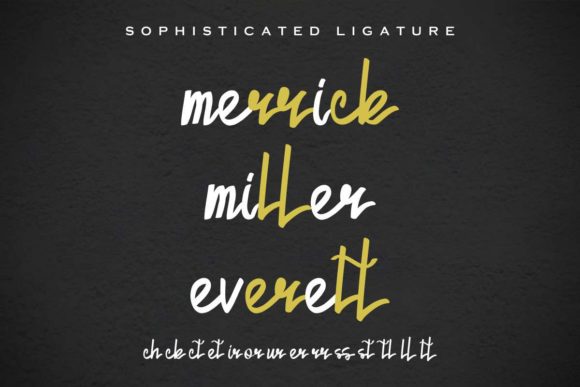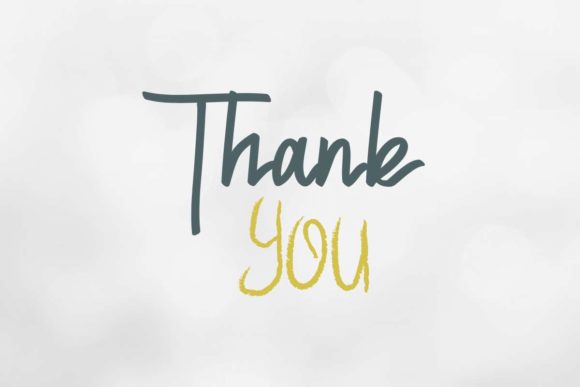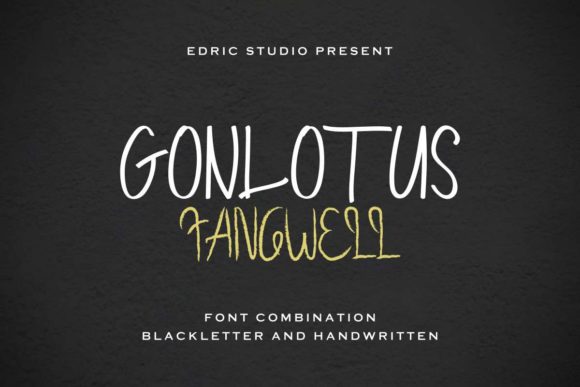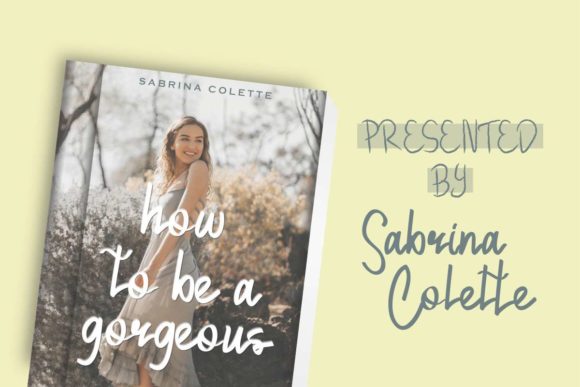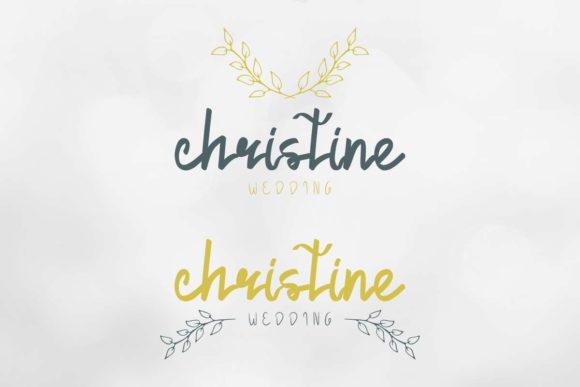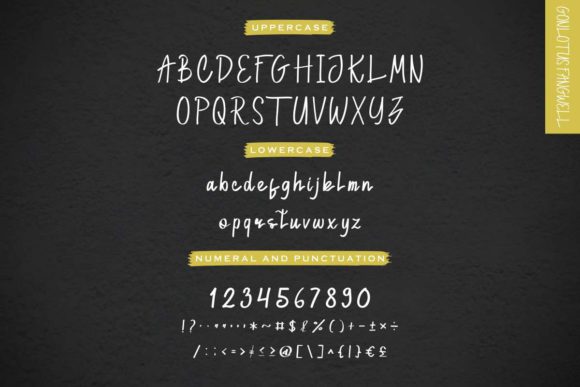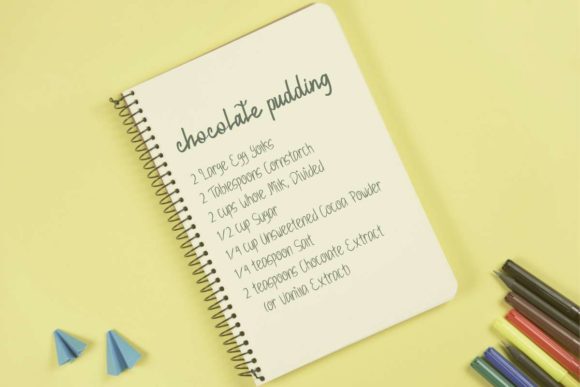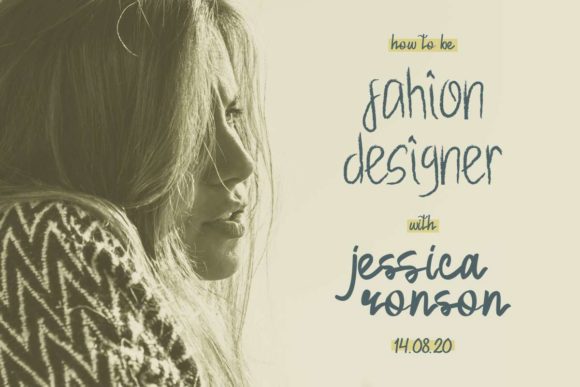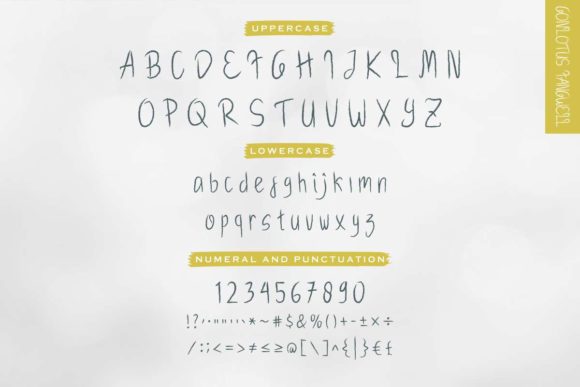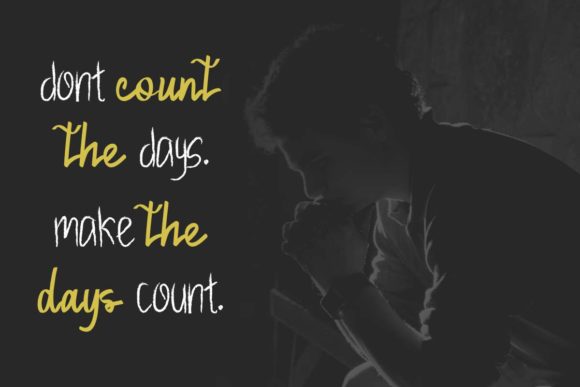
Gonlotus Fangwell Font
About Gonlotus Fangwell Font
Gonlotus Fangwell is a duo font that features handwriting signature and display grunge. This versatility means that this font can be used in a wide variety of applications from amazing greeting cards, to beautiful stationery- the only limit is your imagination!